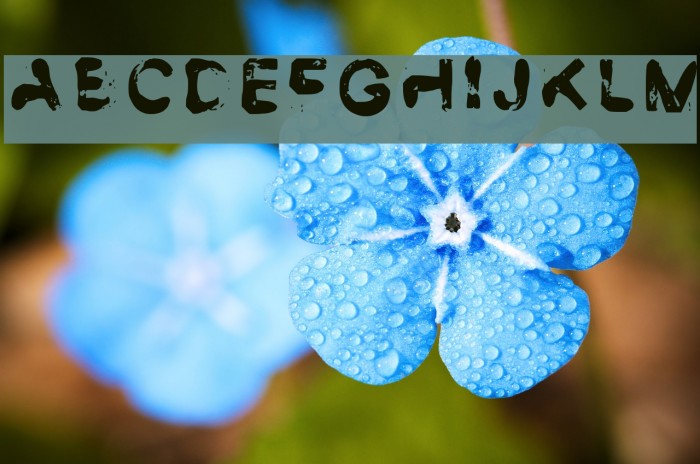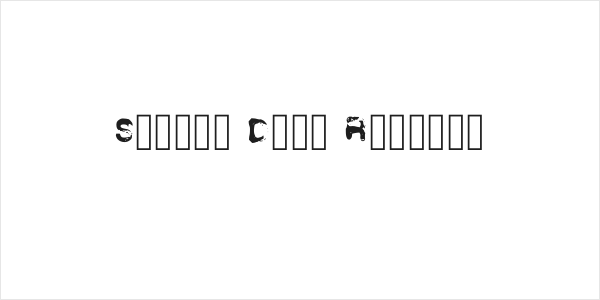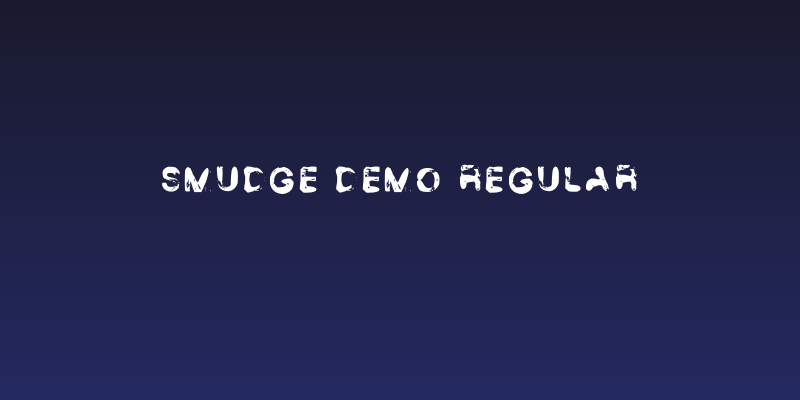
Smudge Demo Regular Font
Smudge Demo Regular Description
This font features a bold and distressed style, with each character appearing as if it has been smudged or worn. The uppercase letters are prominently bold, with irregular edges that give a grunge or urban feel. The texture within each letter adds depth and character, making it ideal for designs that require a rugged or vintage aesthetic. The font's unique appearance makes it stand out, perfect for creative projects that aim to capture attention with a bold statement.
Overall StyleGrunge, Urban, Vintage
Proposed ProjectsIdeal for posters, album covers, streetwear branding, and any project needing a bold, edgy look.